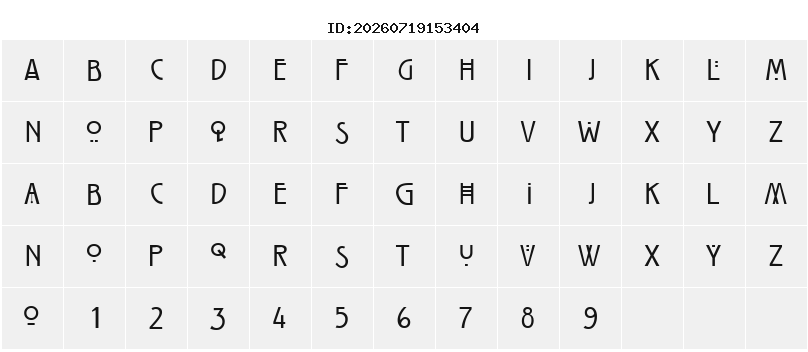
About CRMackintosh.ttf
CRMackintosh.ttf is a modern, elegant sans-serif font designed for ultimate readability and visual harmony. Perfect for branding, headlines, web design, and print materials.